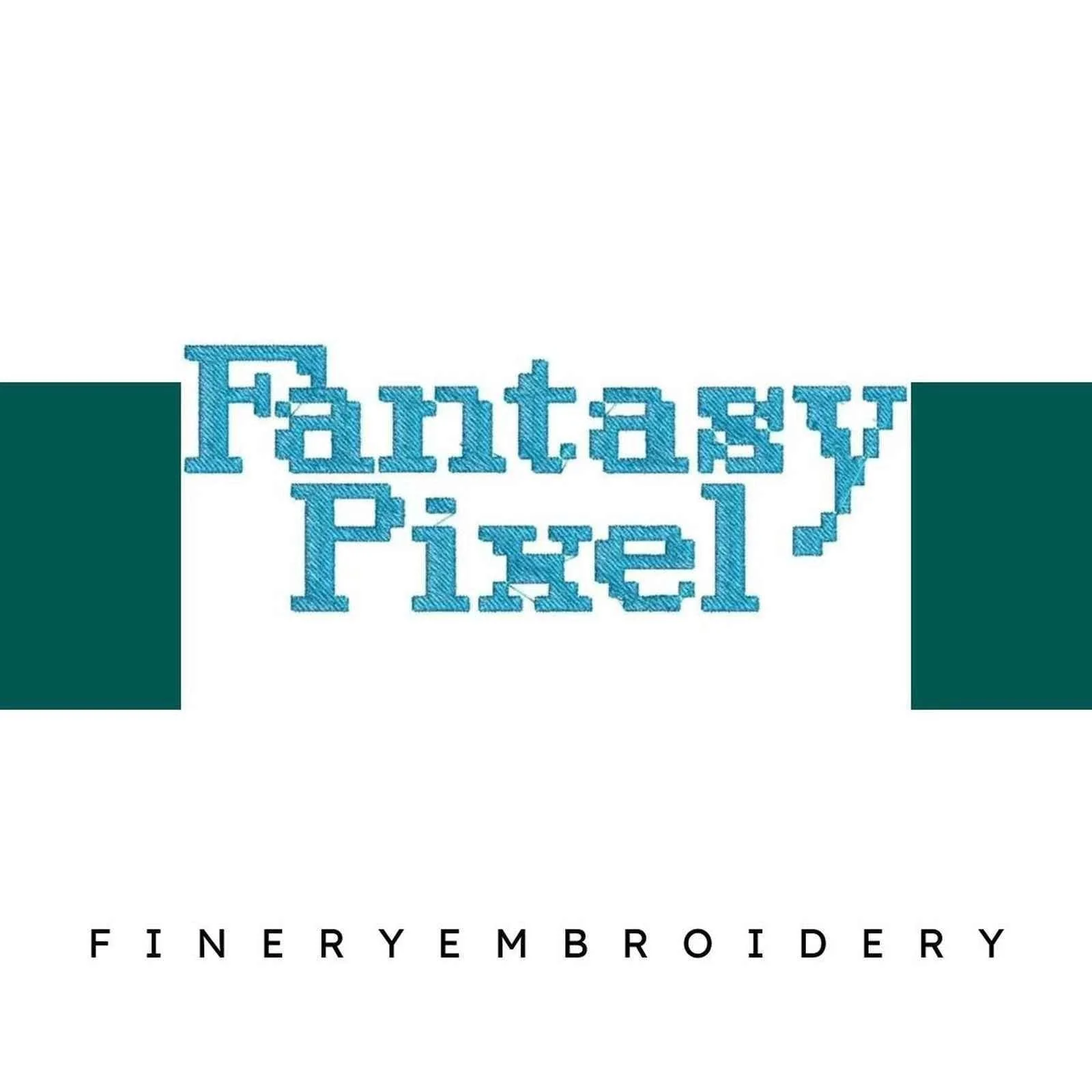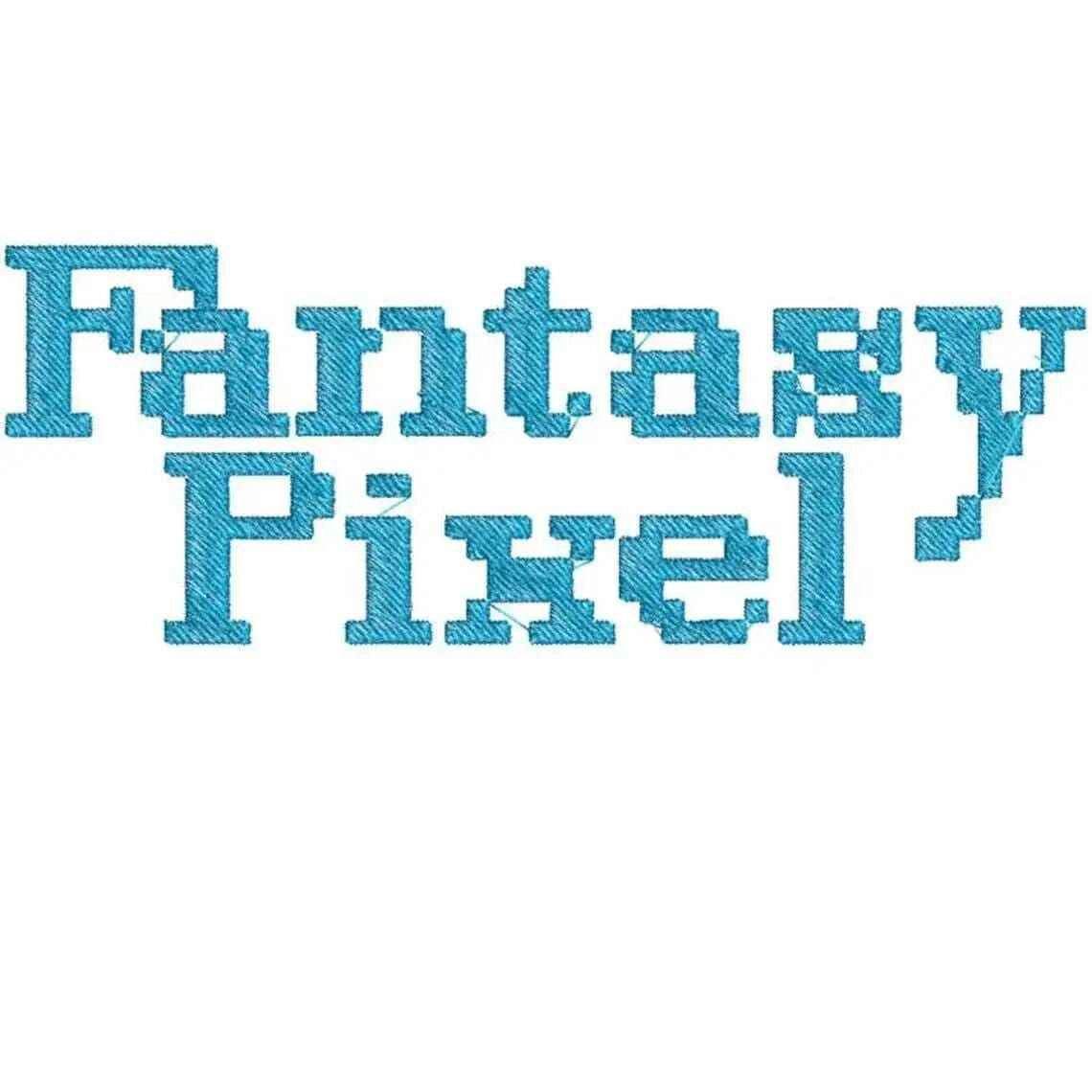
Unleash your creativity with the Fantasy Pixel Embroidery Alphabet Font Set – where magic meets pixel perfection!
Introducing the Fantasy Pixel Embroidery Alphabet Font Set, a captivating collection that intertwines whimsical fantasy elements with a retro pixel art aesthetic. This set is perfect for crafting enchanting projects that stand out with vibrant designs and delightful details, making it a must-have for any embroidery enthusiast.
This font set is not just about letters; it’s about storytelling. Each character is designed to evoke a sense of wonder, allowing you to personalize your creations with unique flair. The intricate designs ensure that your embroidery looks professional and engaging, providing an elegant touch that’s perfect for any project.
The versatility of the Fantasy Pixel Alphabet is truly inspiring. Use it to embellish clothing, create decorative home items, or personalize gifts. Whether you’re crafting a whimsical nursery blanket or enhancing your apparel line, this font set allows your imagination to soar while adding a distinctive touch to your embroidery work.